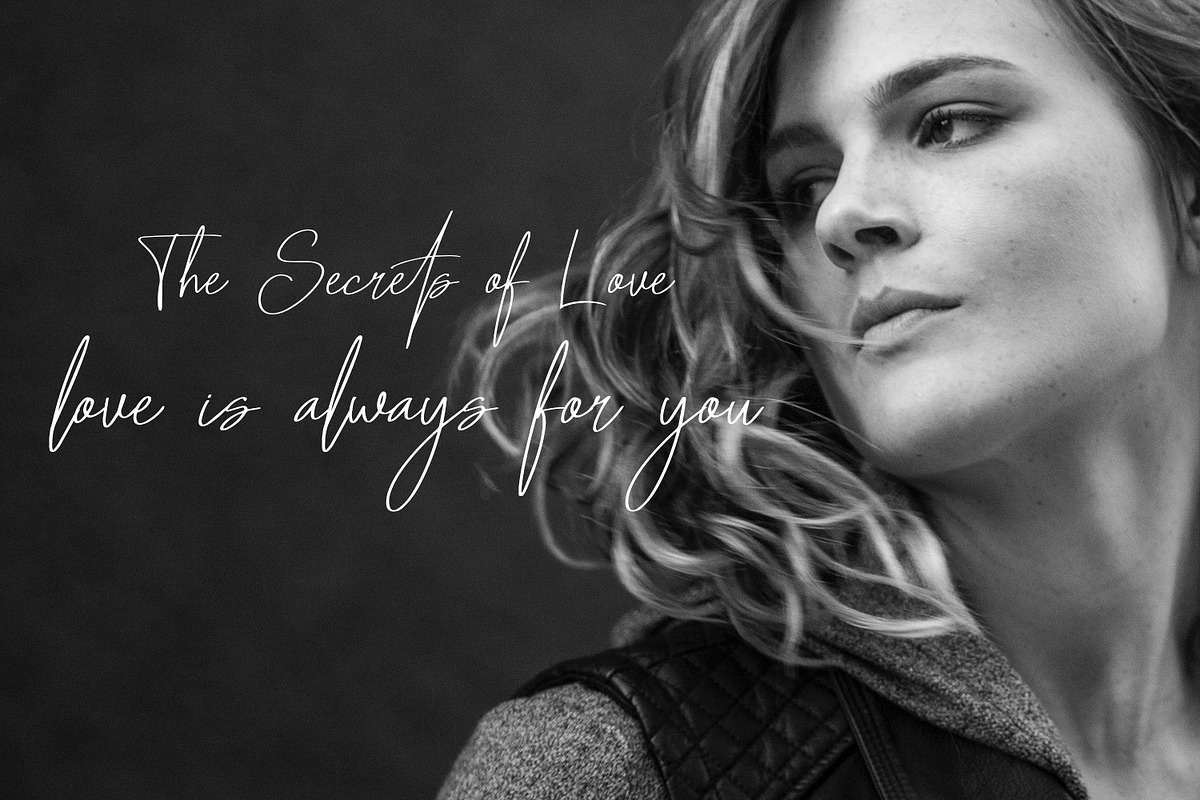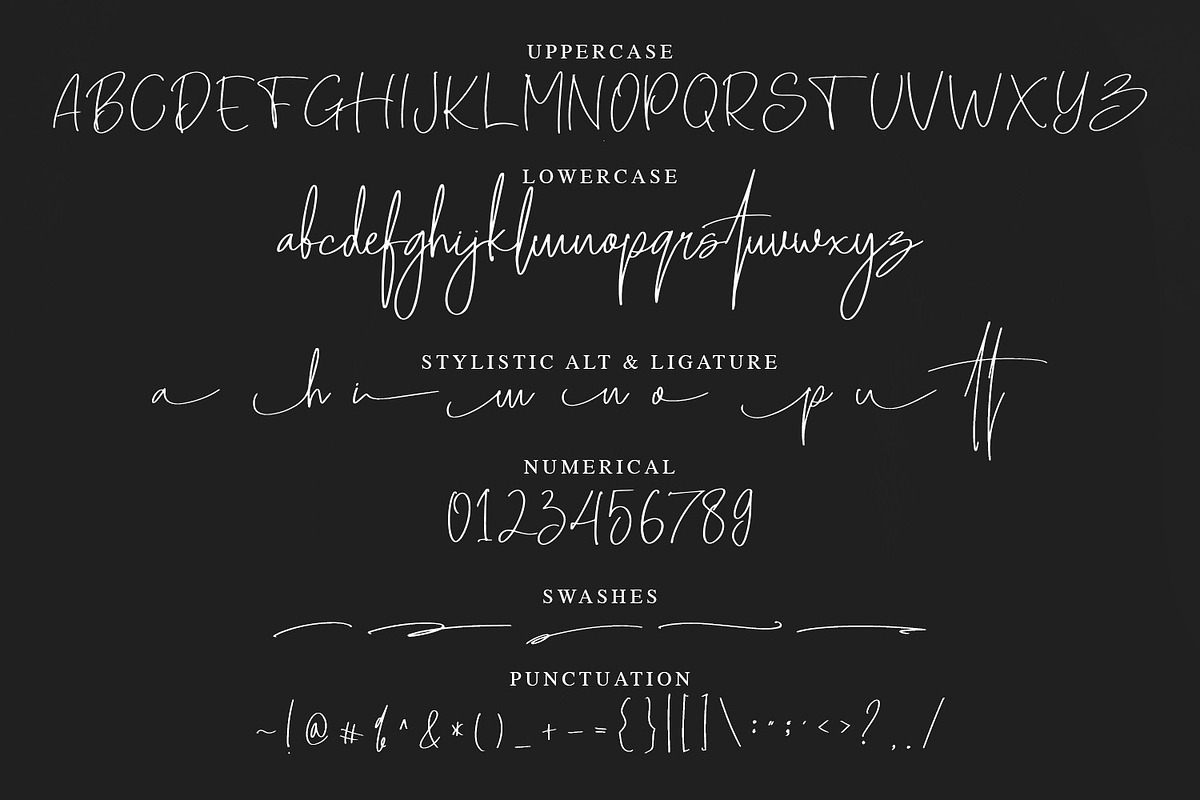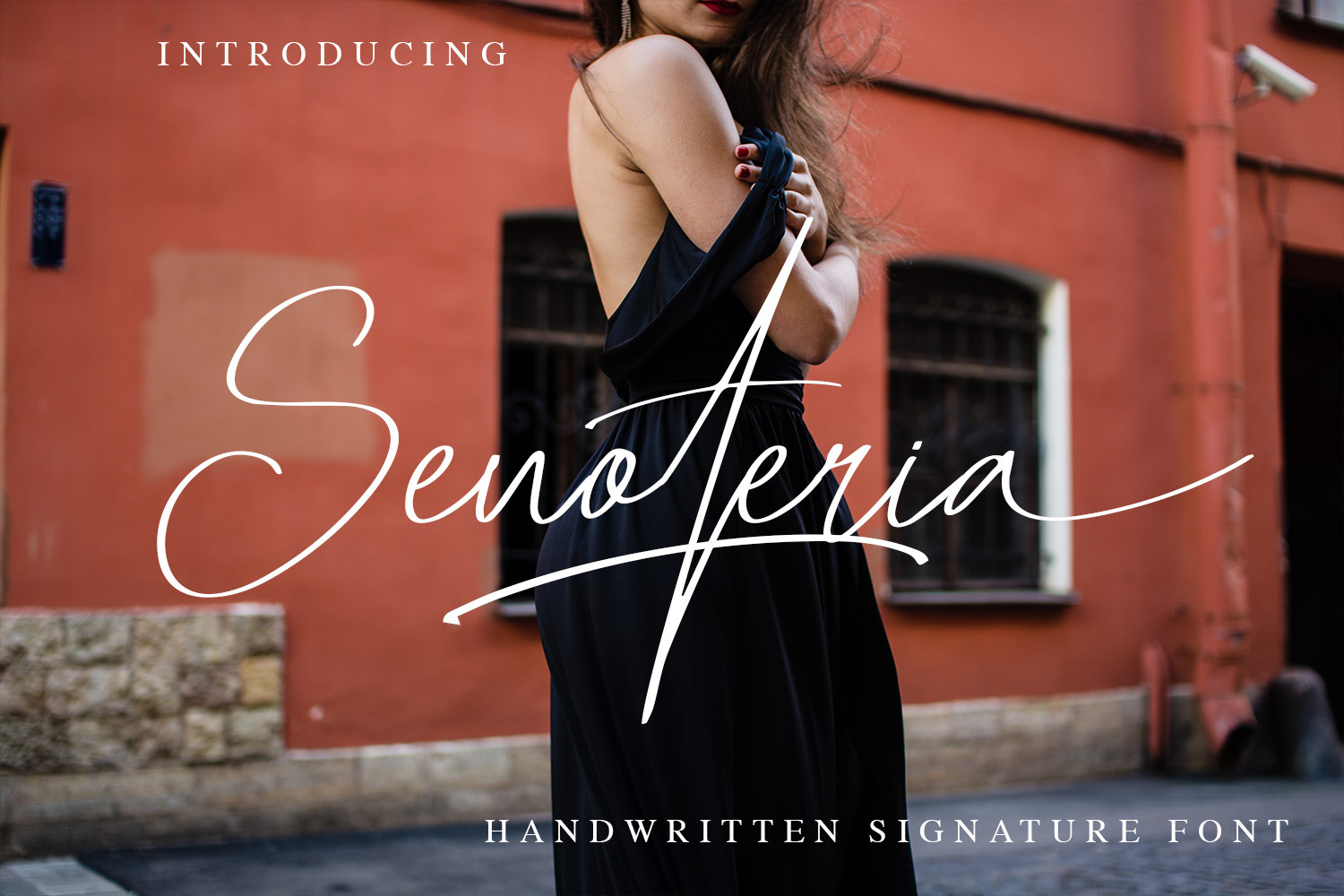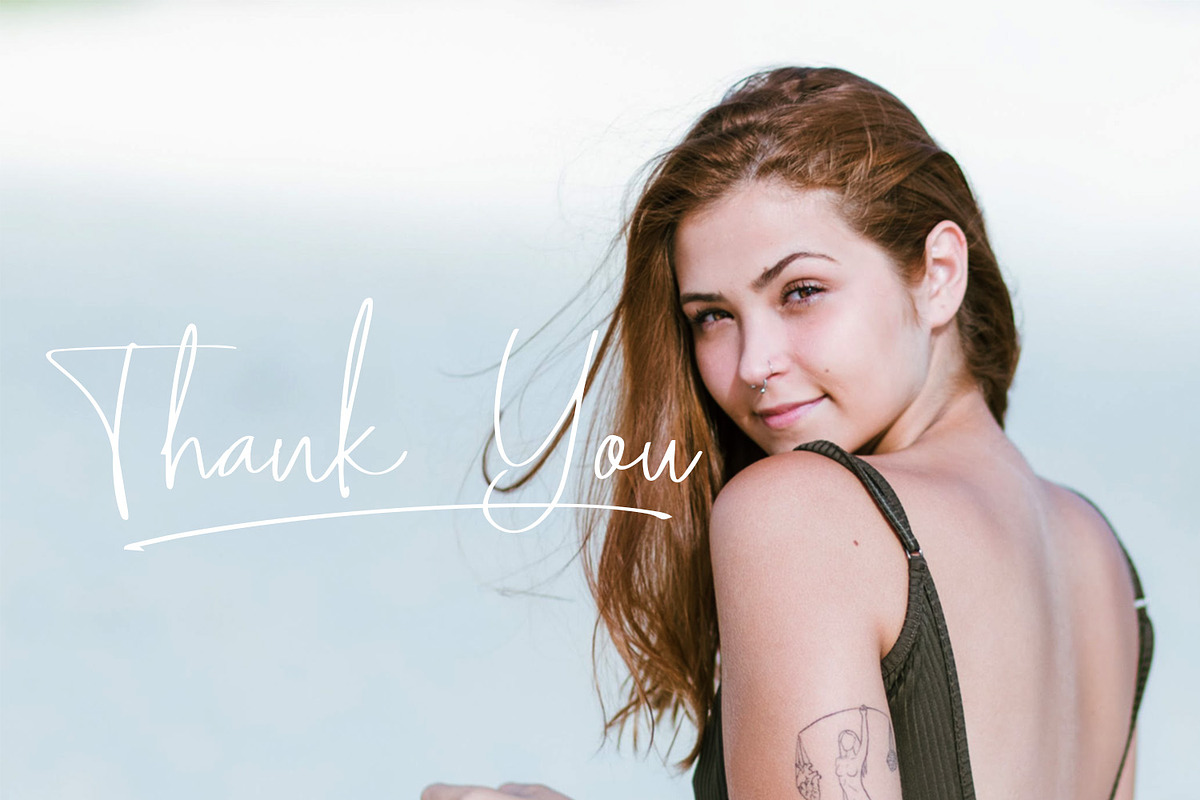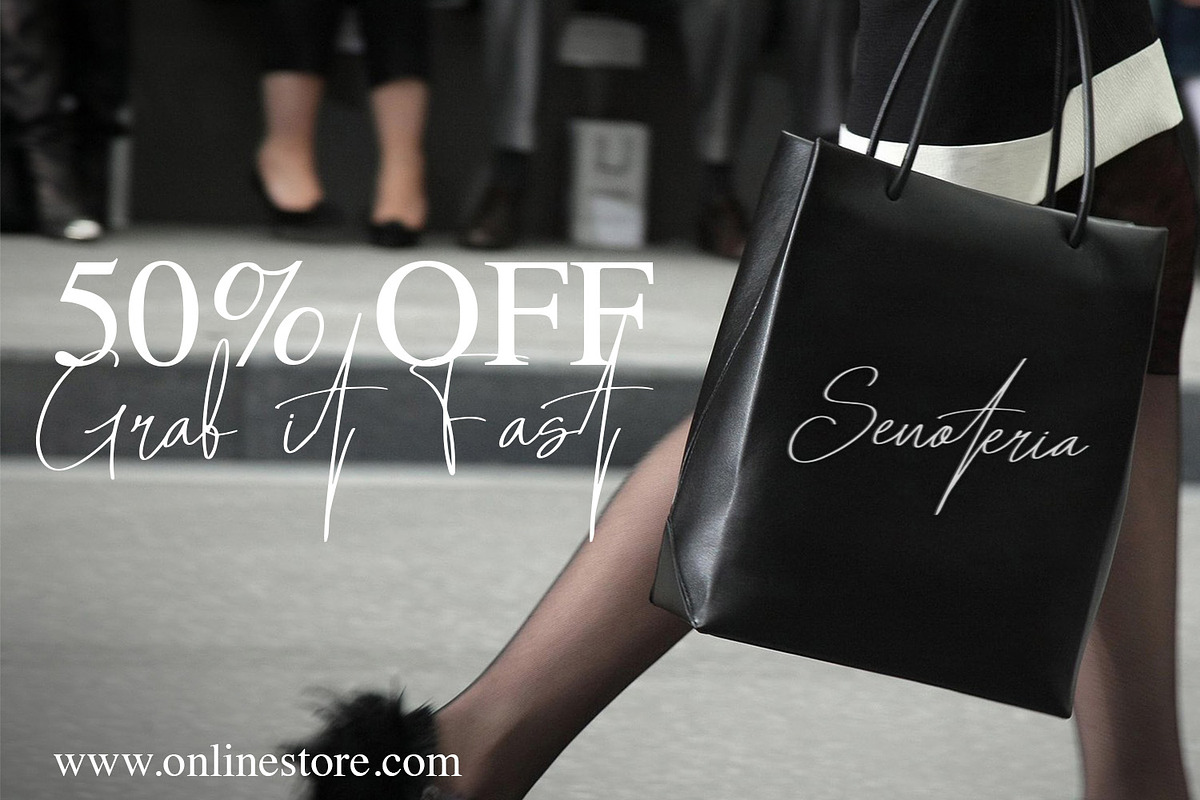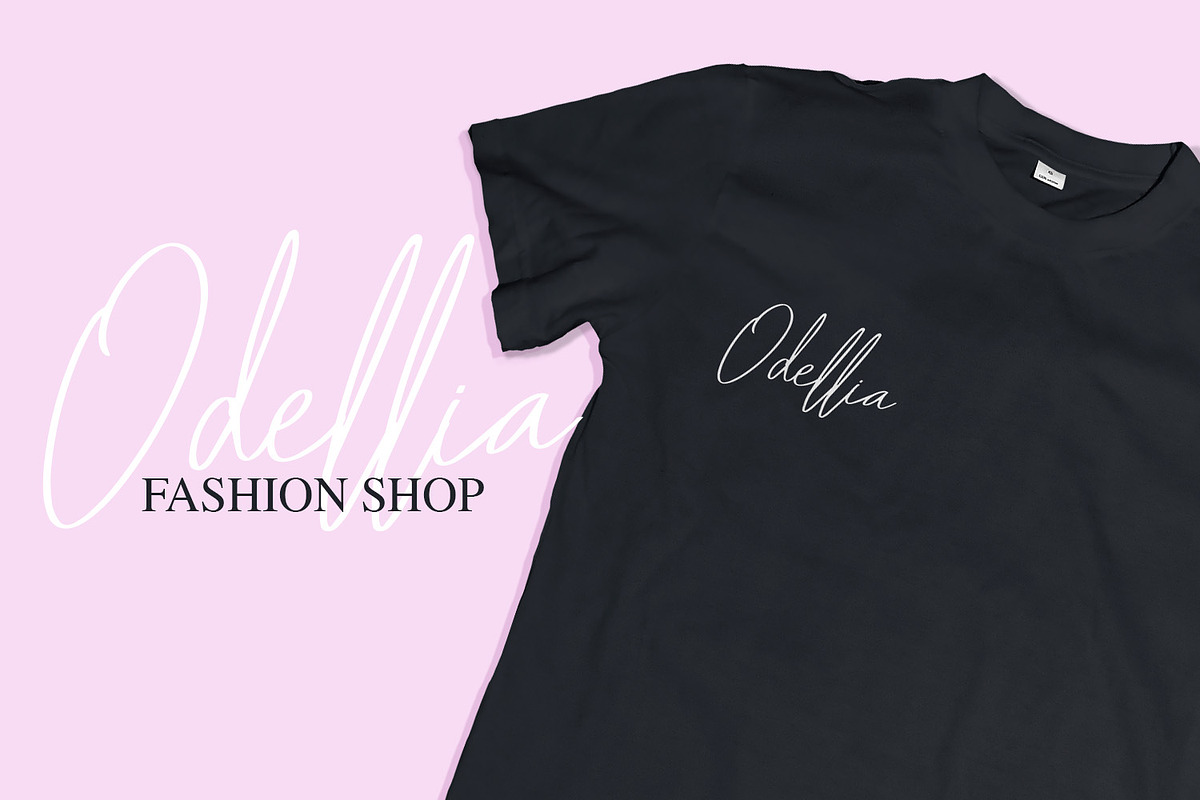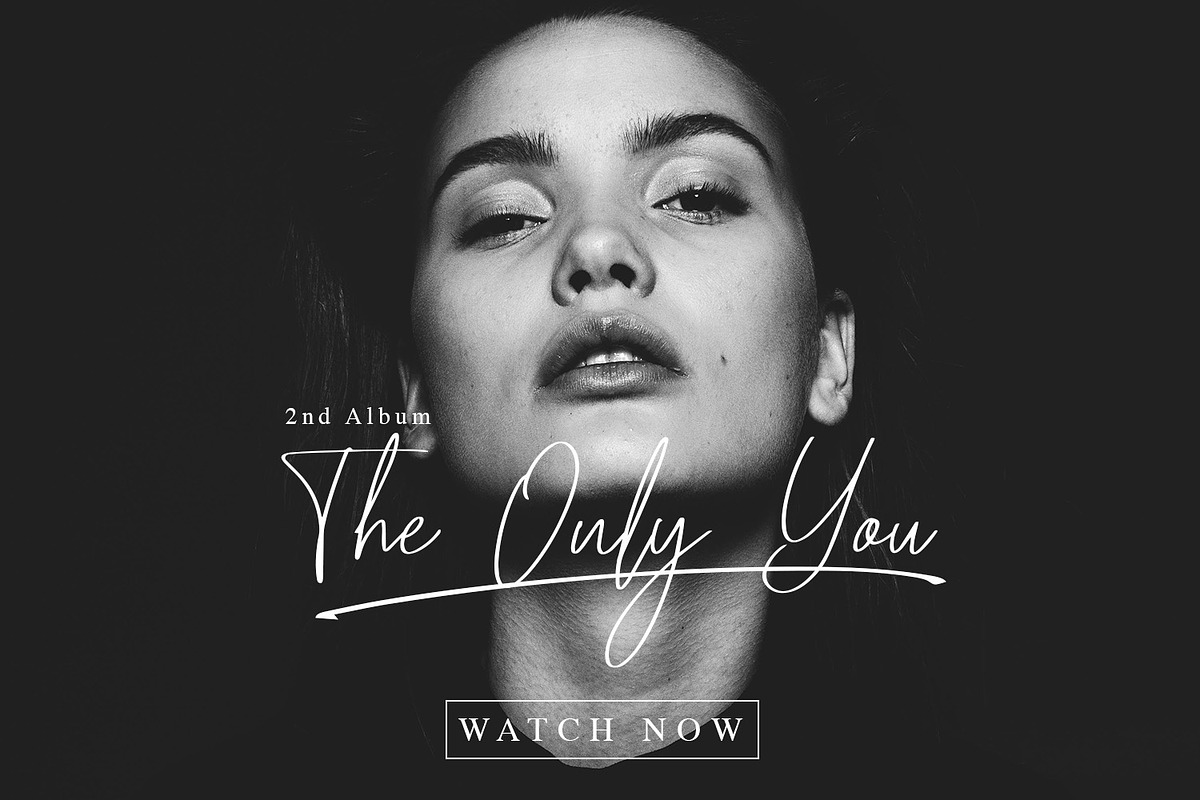
Senoteria - Signature Font
DETAILS
Senoteria is a Handwritten Signature type font with a signature style. That is very suitable for the publication needs of fashion, magazine, t-shirt design, flyers, and can also be used as a signature font. This font has a beautiful script character but has a firm side in it. Made with hand scratches directly and then processed into font processing software.
Senoteria font with uppercase characters A-Z, lowercase characters a-z, punctuation, swashes, stylistic alternate and 1 ligature characters that enhance this font shape.
-Ligature
-Stylistic Alternate
-Swashes